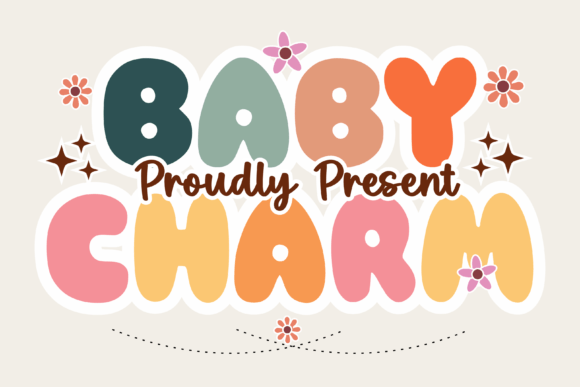
Baby Charm Font: Adding a Touch of Youthful Charm to Your Designs
In the world of typography, fonts play a crucial role in conveying the tone and personality of a brand or design. With the numerous font options available, it can be challenging to find the perfect one that captures the essence of your project. However, if you’re looking for a font that exudes youthful charm and playfulness, look no further than the Baby Charm Font. In this article, we’ll delve into the features and benefits of this delightful font and explore how it can elevate your designs.
Introducing Baby Charm Font
Baby Charm is a playful and invigorating display font that is sure to capture your attention. Its exuberant, rounded characters bring a sense of joy and liveliness to any design, making it perfect for projects that require a youthful and energetic vibe. This robust font is designed to make a statement, injecting a dash of buoyancy and assertiveness into your visuals.
Key Features of Baby Charm Font
- Playful and Invigorating: Baby Charm’s unique design makes it stand out from other fonts. Its rounded characters and exuberant feel make it perfect for designs that require a playful touch.
- Youthful and Lively: This font is designed to bring a sense of youthfulness and energy to your designs. Its lively feel makes it perfect for projects that require a fresh and vibrant approach.
- Robust and Assertive: Despite its playful nature, Baby Charm is a robust font that can make a bold statement. Its assertive feel makes it perfect for designs that require confidence and strength.
- Versatile: Baby Charm is a versatile font that can be used in a variety of applications, including titling, poster design, and inventive projects.
Applications of Baby Charm Font
Baby Charm’s unique features make it suitable for a wide range of applications. Here are some of the ways you can use this font to elevate your designs:
- Titling: Use Baby Charm as a title font for your blog posts, articles, or website headings. Its playful and invigorating feel makes it perfect for grabbing the attention of your audience.
- Poster Design: Create eye-catching posters with Baby Charm. Its robust and assertive feel makes it perfect for posters that require a bold statement.
- Inventive Projects: Baby Charm’s unique design makes it perfect for inventive projects such as branding, packaging, and advertising.
Benefits of Using Baby Charm Font
Using Baby Charm Font can bring numerous benefits to your designs. Here are some of the advantages of using this font:
- Standout Visuals: Baby Charm’s unique design makes it perfect for creating standout visuals that are not easily forgotten.
- Youthful Charm: This font brings a youthful and lively charm to your designs, making it perfect for projects that require a fresh and vibrant approach.
- Confidence and Strength: Baby Charm’s robust and assertive feel makes it perfect for designs that require confidence and strength.
Tips for Using Baby Charm Font Effectively
To get the most out of Baby Charm Font, here are some tips to keep in mind:
- Use it Sparingly: While Baby Charm is a beautiful font, it’s best to use it sparingly. Use it for headings or titles, and pair it with a simpler font for body text.
- Experiment with Colors: Baby Charm looks great in bold and bright colors. Experiment with different colors to find the one that works best for your design.
- Pair it with Other Fonts: Baby Charm can be paired with other fonts to create a unique and interesting combination. Experiment with different font pairings to find the one that works best for your design.
In conclusion, Baby Charm Font is a playful and invigorating display font that can add a touch of youthful charm to your designs. Its unique features make it perfect for a variety of applications, including titling, poster design, and inventive projects. With its robust and assertive feel, Baby Charm can help you create standout visuals that are not easily forgotten. So, if you’re looking for a font that can bring a sense of joy and liveliness to your designs, look no further than Baby Charm Font.